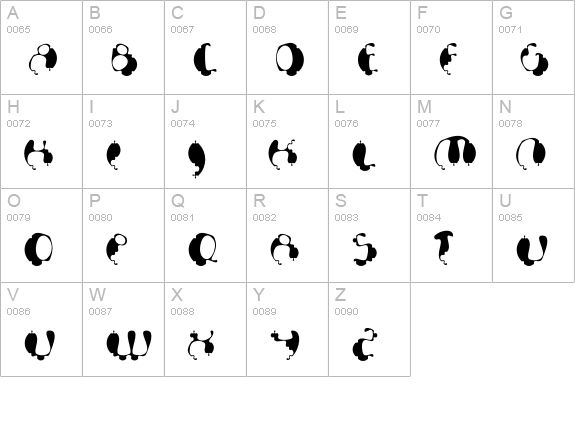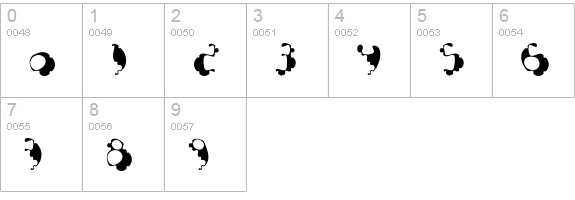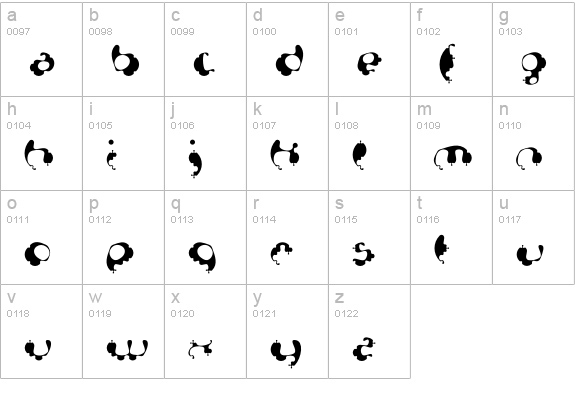
Bionic-Organic Font Details
Introducing the innovative Bionic-Organic font, a stunning fusion of futuristic bionic elements and organic shapes. This unique typeface offers a perfect balance between sleek modernity and natural beauty, making it a versatile choice for a wide range of design projects. Embodying a harmonious blend of technology and nature, the Bionic-Organic font features intricate details and flowing curves that create a captivating visual impact. Whether used for branding, editorial design, or digital art, this font is sure to make a lasting impression. What's even better is that the Bionic-Organic font is available for free download at FontsMarket.com. So, don't miss out on the opportunity to enhance your creative projects with this exceptional typeface that seamlessly combines the best of both worlds. Unlock the potential of your designs with the Bionic-Organic font today!